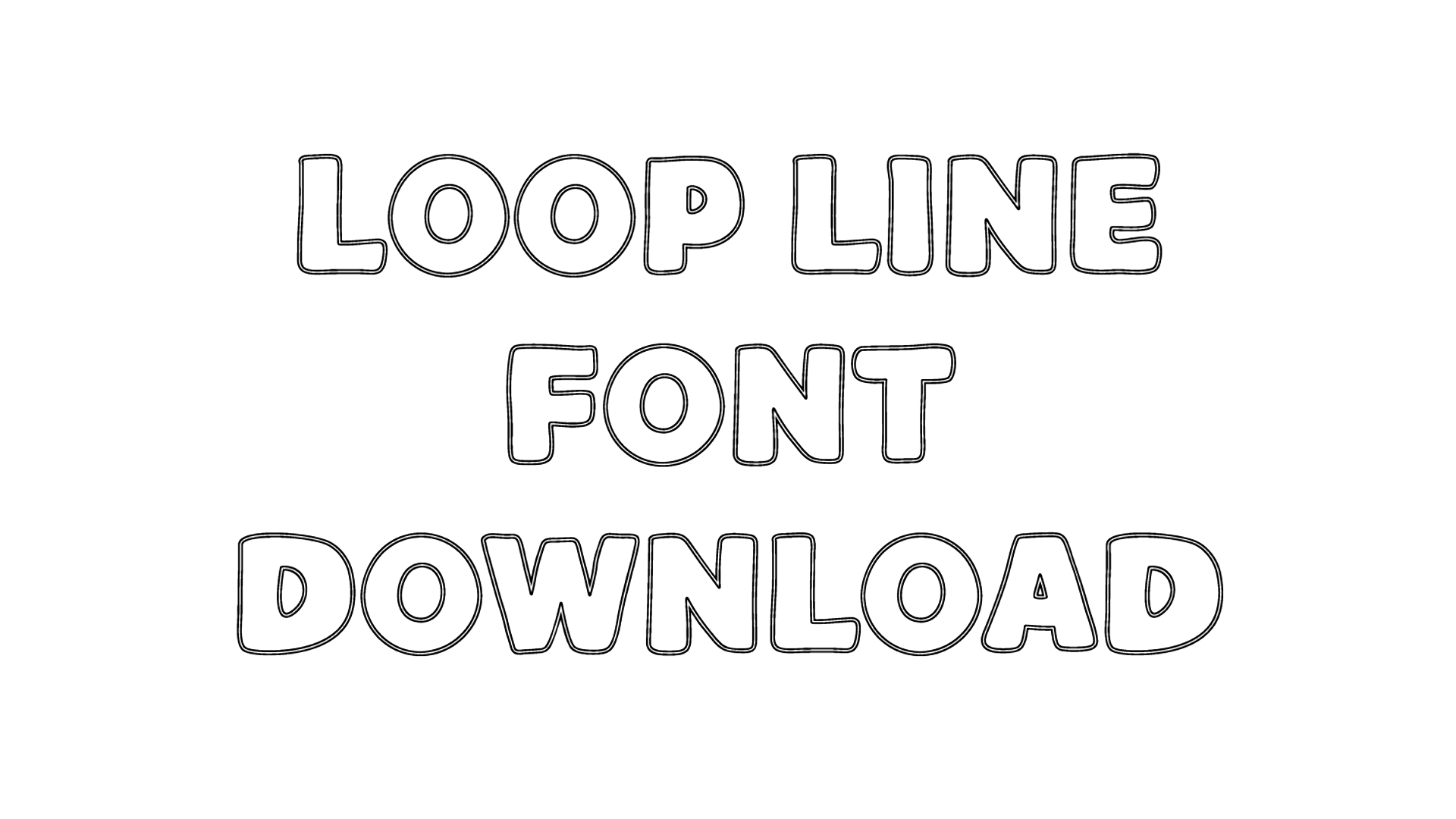
Loop Line Font
Loop Line
Loop Line is a cartoon font created by MJType (Muhamad Junaid). It has a cheerful, hand-drawn look that makes people smile before they even read the words. You can download it for free and test it with your own words in the preview above.
What You Can Type With Loop Line
With complete upper and lowercase letters and all ten digits, Loop Line is ready for real wording, not just a single headline. Common punctuation such as &, !, ? and @ is included as well. It also has the accented letters you need for Spanish, French, German, Portuguese and Italian.
Where Loop Line Works Best
Designers usually reach for fonts like Loop Line when they're making kids' books, birthday invites and fun YouTube thumbnails. Cartoon fonts are great for short, fun lines. If you place it over a busy photo, add a thick outline or a drop shadow so it stays readable.
Does Loop Line support accented letters?
Yes. Loop Line includes the accented letters needed for Spanish, French, German, Portuguese and Italian, so it works for more than just English.